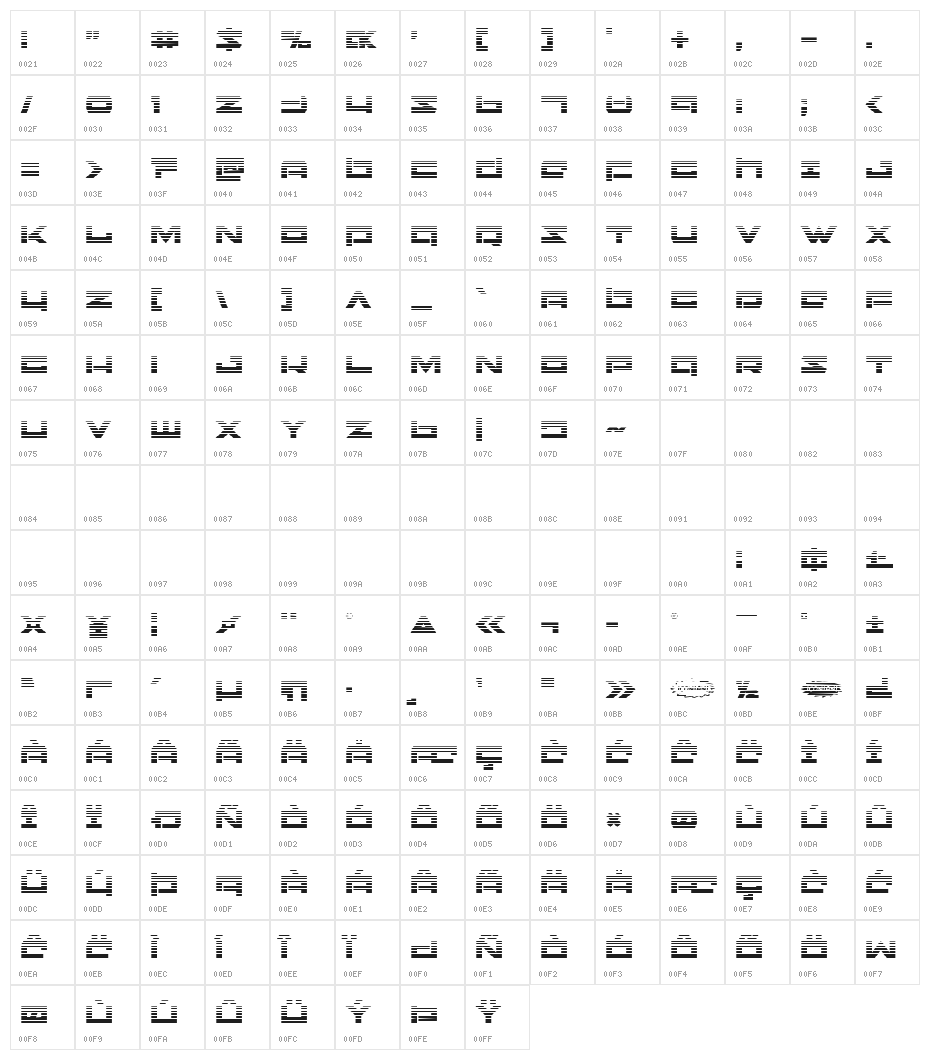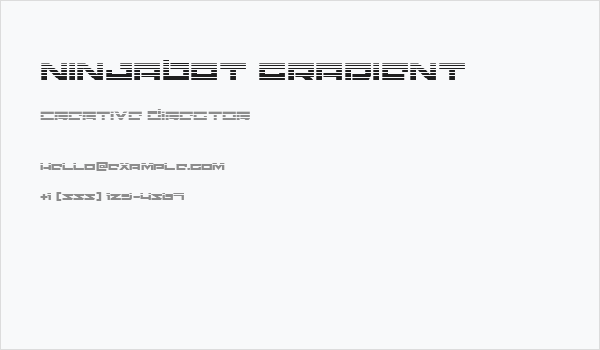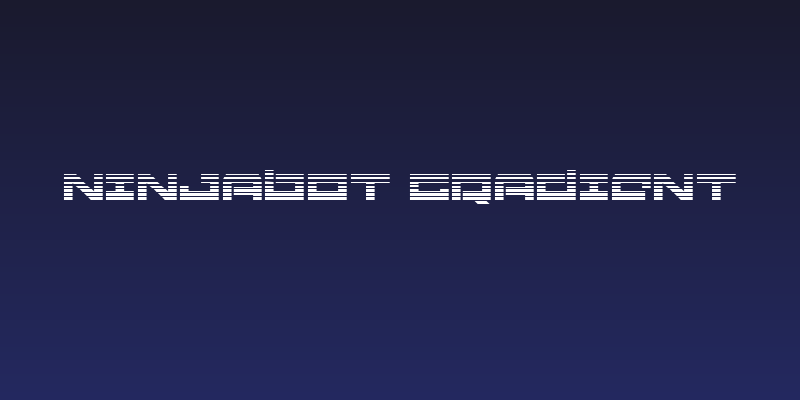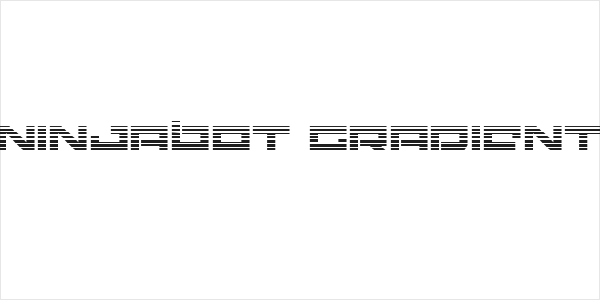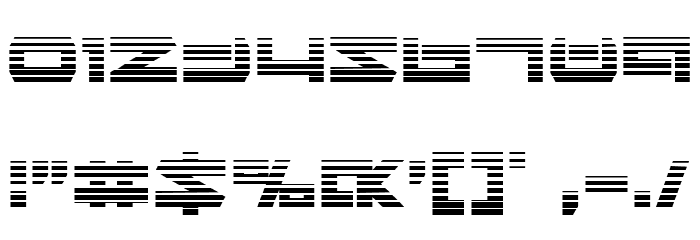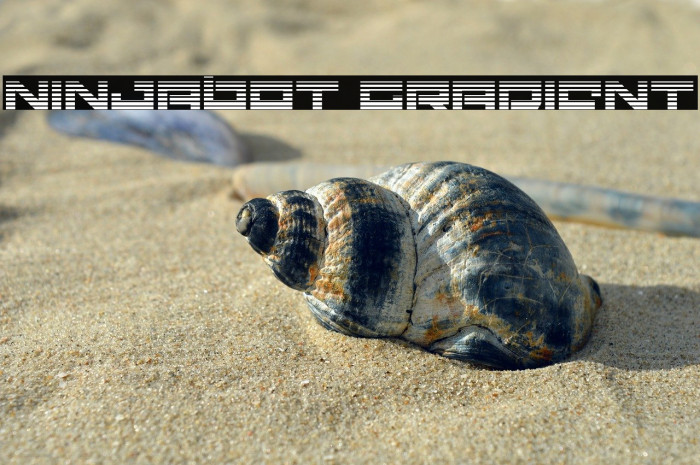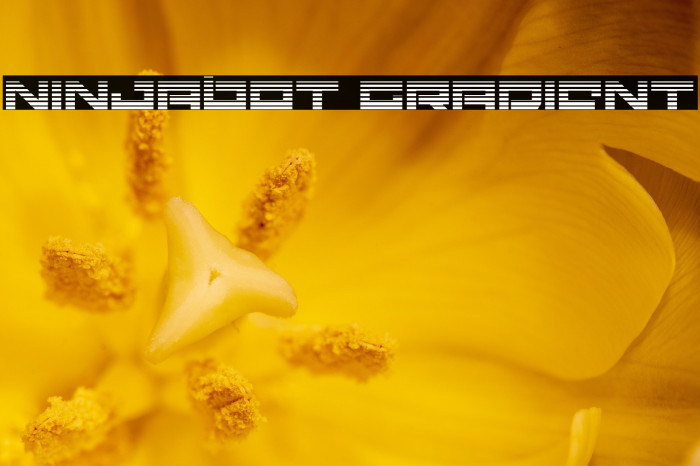
Ninjabot Gradient Font
Ninjabot Gradient Description
This font exhibits a futuristic and digital aesthetic, characterized by its unique use of horizontal lines to form each character. The design is reminiscent of digital displays or barcode patterns, giving it a tech-savvy and modern feel. Each letter and number is constructed with a series of parallel lines, creating a sense of movement and dynamism. The spacing between the lines is consistent, contributing to a cohesive and structured appearance. This font is particularly striking in its ability to convey a sense of speed and innovation, making it ideal for projects that aim to capture a cutting-edge or high-tech vibe.
| Use Case | Logos, Headlines, Posters |
| Proposed Projects | Ideal for tech-related branding, digital interfaces, sci-fi themed posters, and innovative product packaging. |